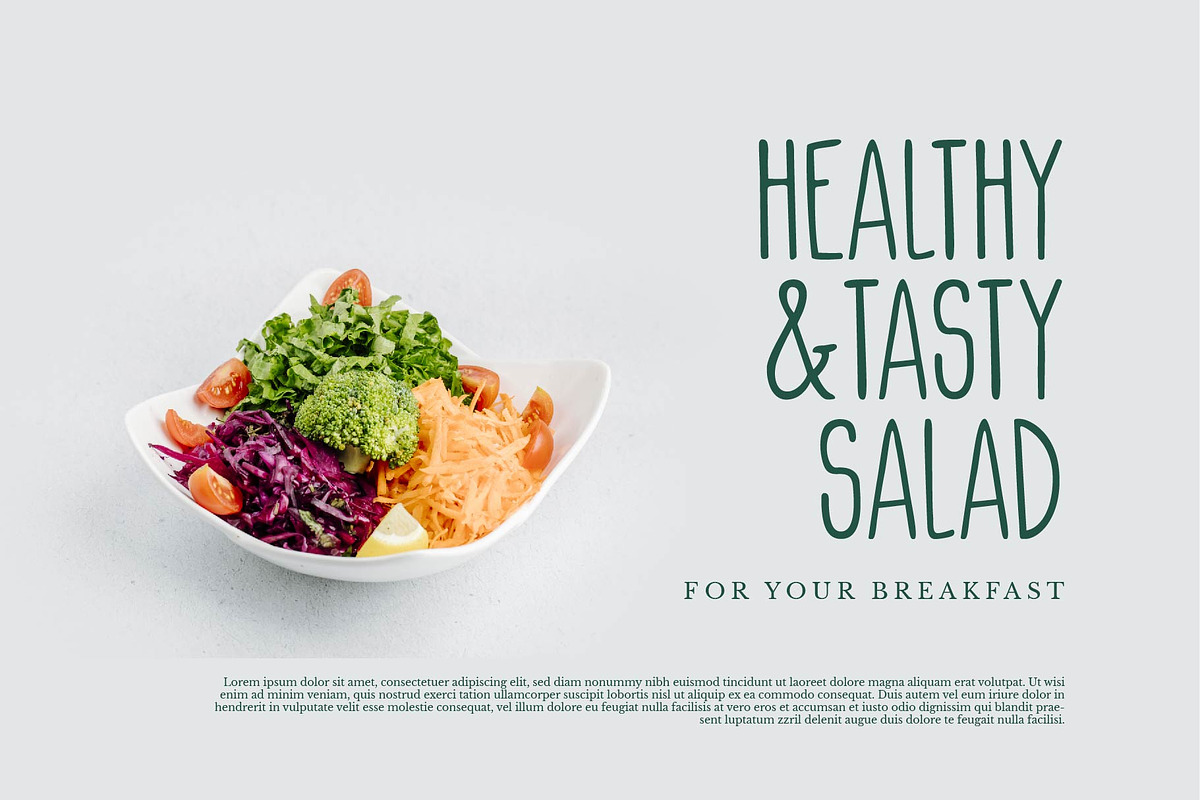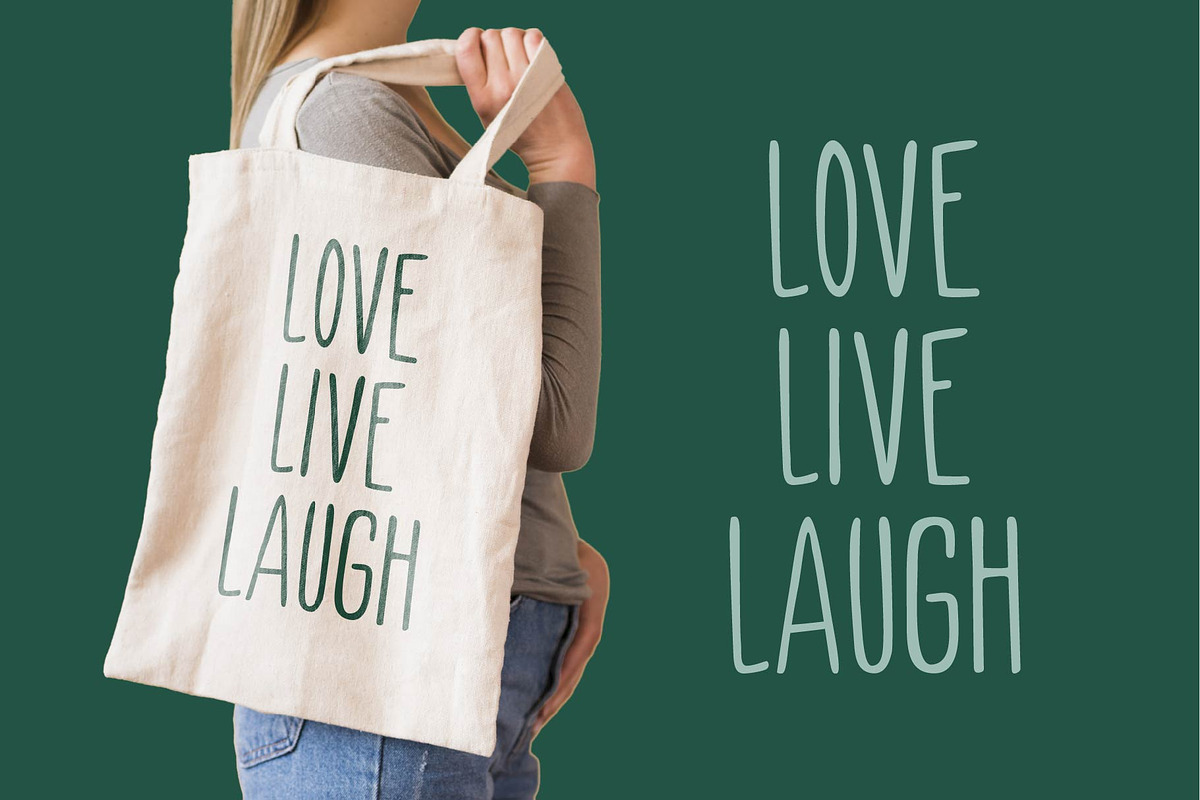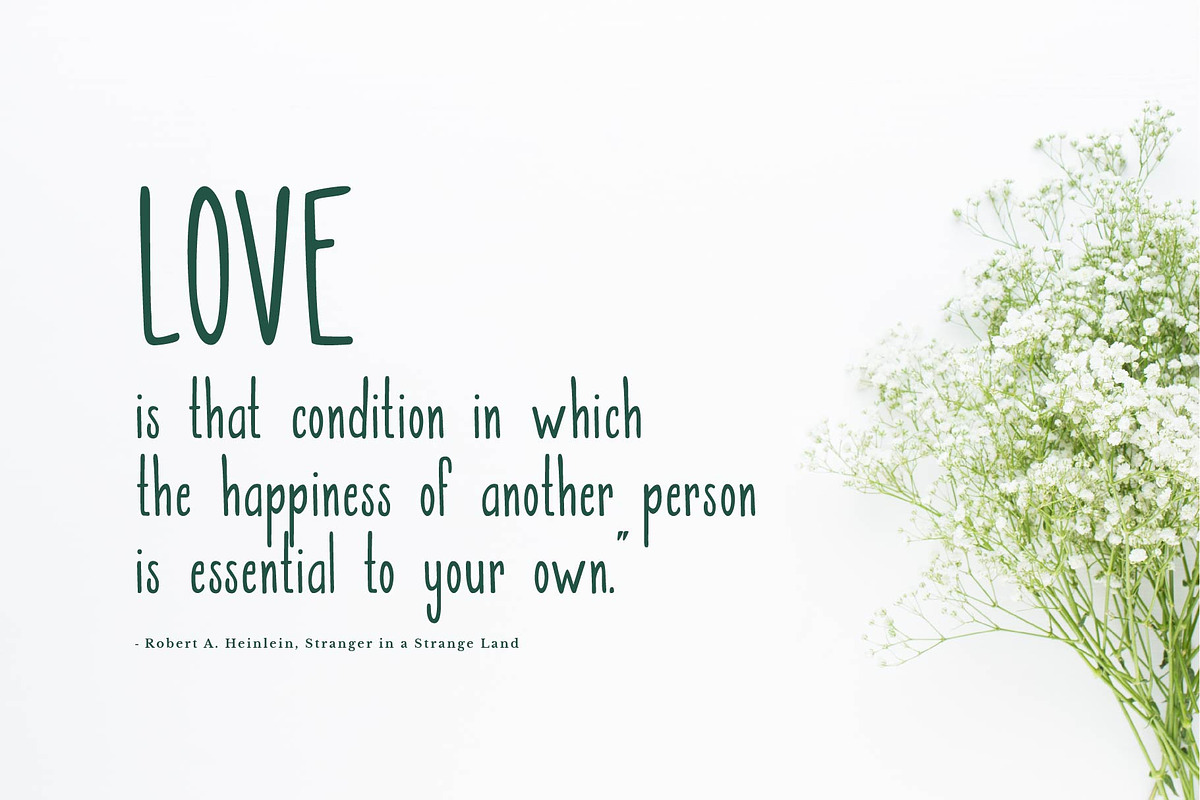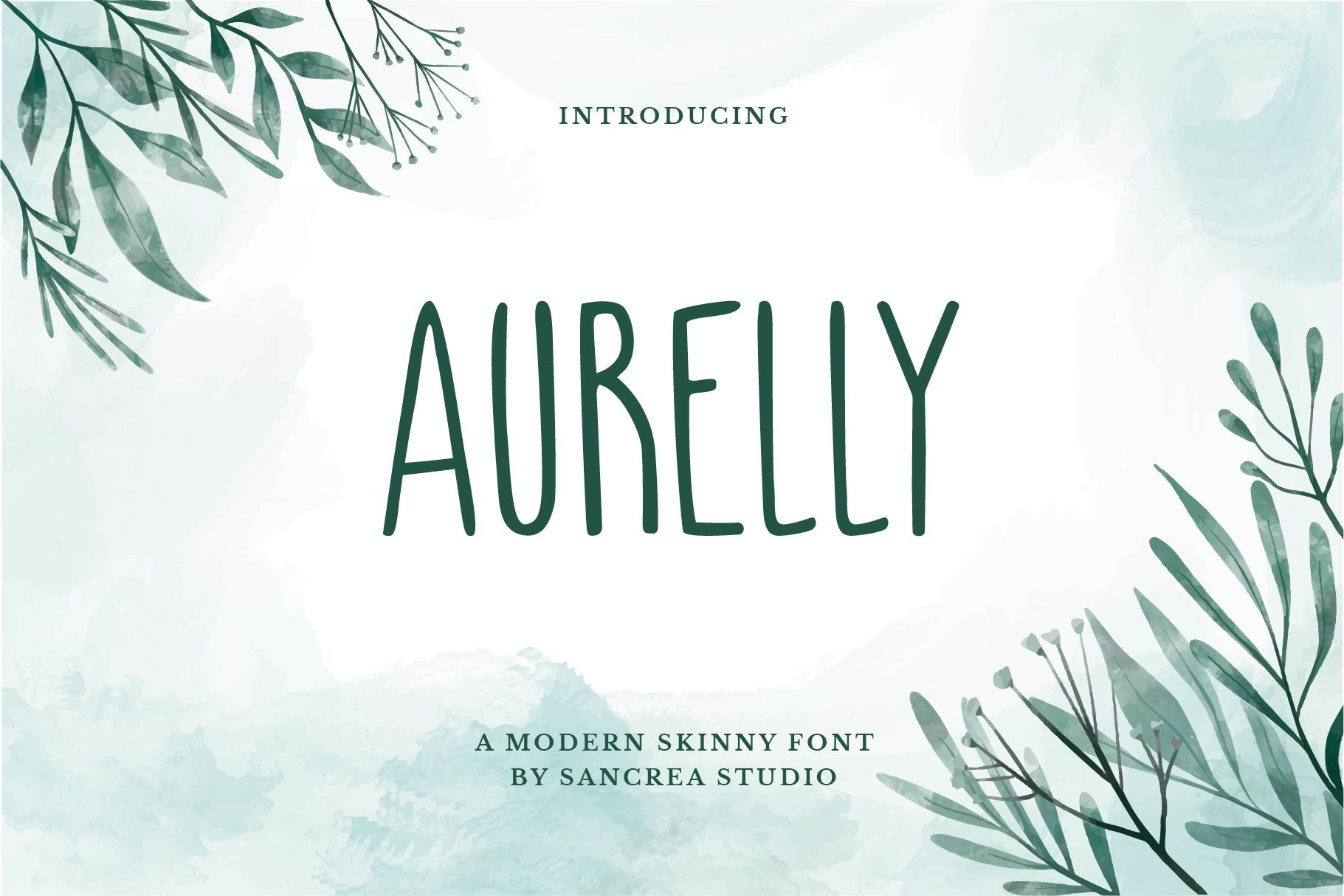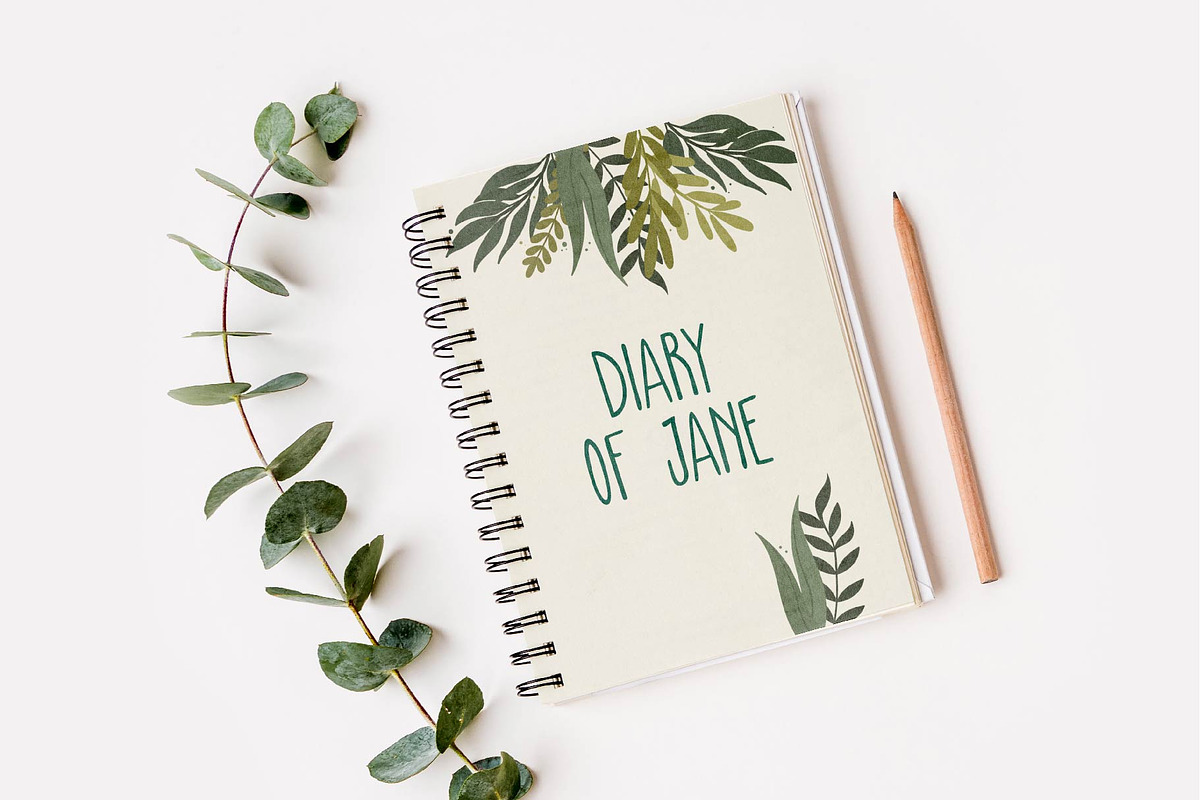
Aurelly - A Modern Skinny Font
Aurelly is a skinny handwritten font. This condensed sans-serif give a fun look on your bussiness card, logo, quotes, invites and can be perfectly to paired with other fonts. It's also fit for branding, packaging, advertisement, wedding, photography and any project that needs handwritting taste.
This font does include accent characters.